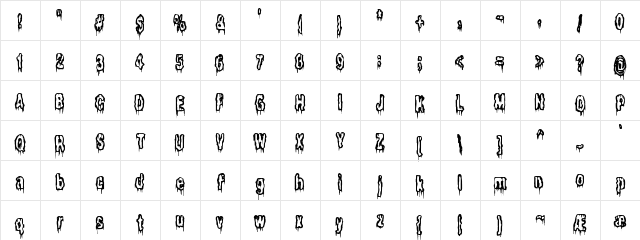
It Lives In The Swamp BRK Regular
| Foundry | ƎIGMA FONTS |
| Designer | ƎIGMA FONTS - Brian Kent |
Design Context for It Lives In The Swamp BRK Typeface
It Lives In The Swamp BRK is a composed and adaptable typeface that performs quietly and consistently across a wide range of design contexts.